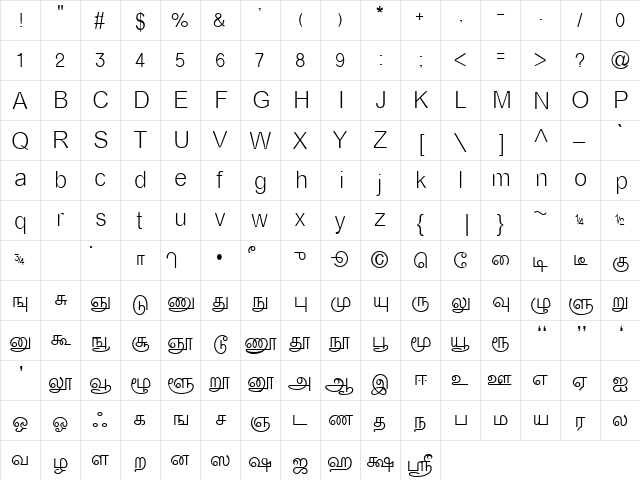
TABLKamban Normal
Design Context for TABLKamban Typeface
TABLKamban is a composed and adaptable typeface that performs quietly and consistently across a wide range of design contexts.